Fontworks Inc. (Head office: Minato-ku, Tokyo, President and CEO: Hisahiro Shimizu, hereinafter referred to as Fontworks) and Monotype Imaging Inc.'s Japanese subsidiary, Monotype K.K. (Head office: Minato-ku, Tokyo, President and CEO: Fuminobu Sato, hereinafter referred to as Monotype), will jointly host a seminar on the latest font trends in Osaka for corporate branding and creative professionals.
This will be useful for those who want to know the latest font trends and those who are thinking about branding their companies, services, etc. Please come and join us.
Branding tips! Latest font trend seminar
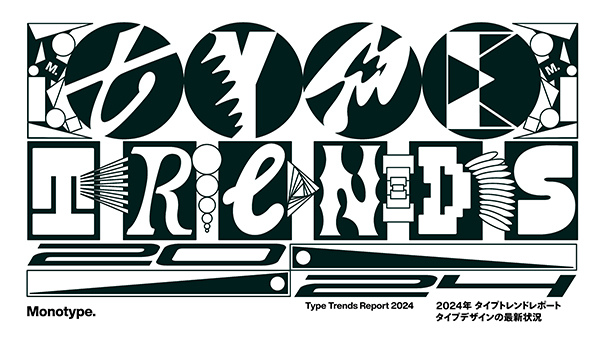
Monotype, specialists in typefaces and type technology, releases their annual Type Trends Report. This year’s report explores how type is connecting with society by examining creative work from around the world and presenting 10 trends.
Ryota Doi, a senior type designer at Monotype, will explain the latest trends in typefaces around the world based on the report. Doi and Shunya Morita, Type Designers at Fontworks, will also talk about trends in Japan and China, touching on actual examples.
"2024 Type Trend Report: The Latest State of Type Design"
In this fourth annual report, we explore how type is connecting with society by examining 10 trends and examples from creative works around the world. In keeping with one of Monotype's goals to bridge the gap between creatives and non-creators, we've paired each trend with a familiar musical genre.
Typefaces have permeated a wide range of fields, and they adapt and change shape flexibly as the world changes. We hope that this report will provide an opportunity to reconsider branding for the modern era.
Speakers
Ryota Doi
Senior Type Designer, Monotype
After graduating from the Department of Design at Tokyo University of the Arts, he obtained a master's degree in type design from the University of Reading in the UK. Since 2015, he has worked as a type designer at Monotype, developing corporate typefaces and providing consulting services including typeface selection. He is also a member of the Tazugane Gothic production team, and is involved in the family expansion and character type extension to accommodate CJK (Chinese, Japanese, Korean) Language. Recently, he has been spreading information about typefaces both domestically and internationally through university lectures and speaking at international conferences.
Shunya Morita
Fontworks Type Designers
Graduated from the Department of Design, College of Art, Nihon University. Joined Fontworks Inc. in 2017. Currently training in typeface creation through collecting printed materials from Tsukiji Type Foundry and reproducing type.
Production font:
・Tsukiji reproduction font "Tsukiji No. 2 Mincho (tentative)" (under construction)
・LINE corporate font (Kanji and Kana only, custom-made)
・Ribbon font (special order)